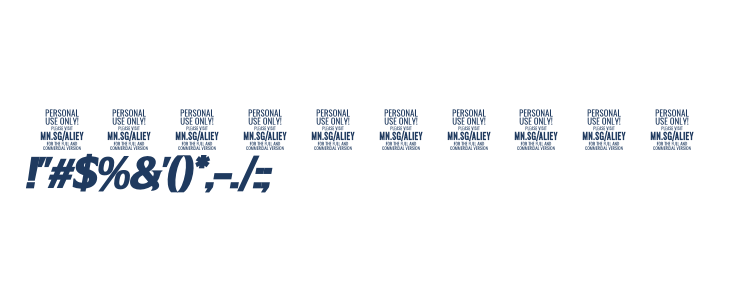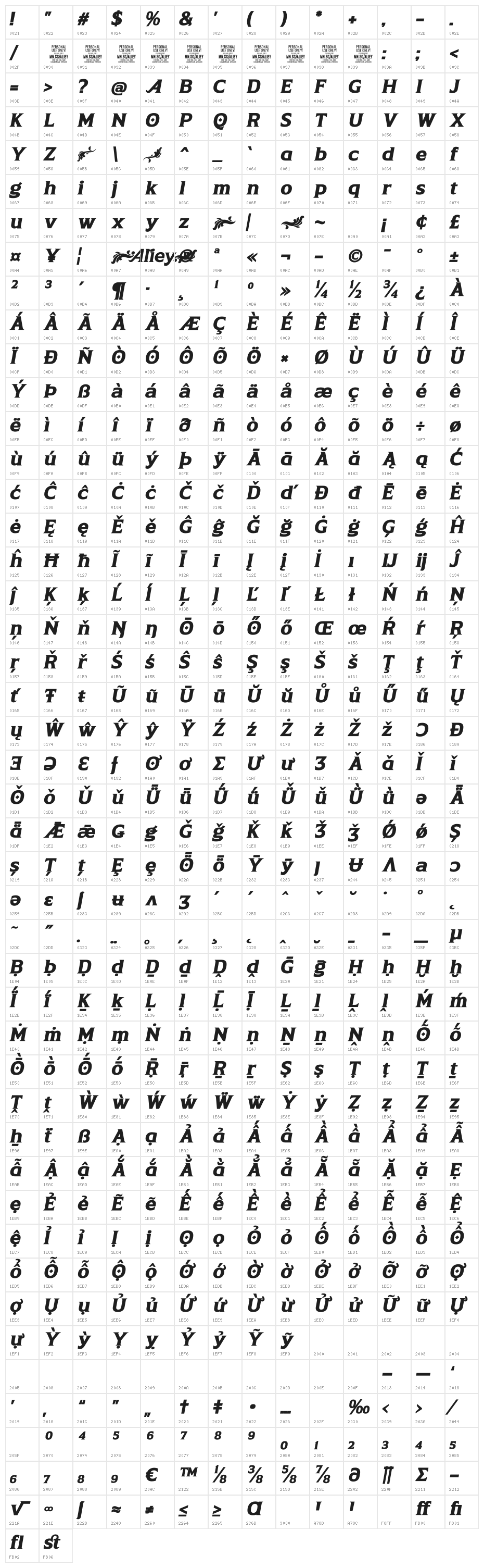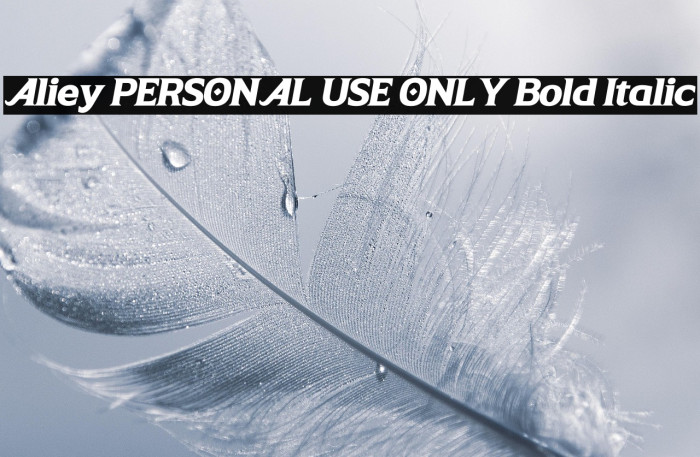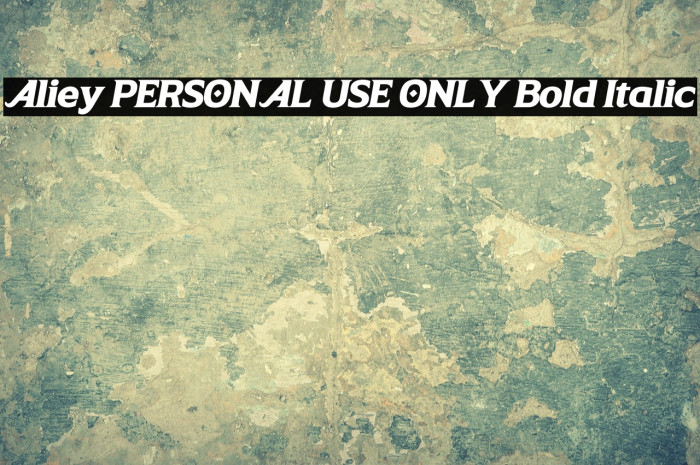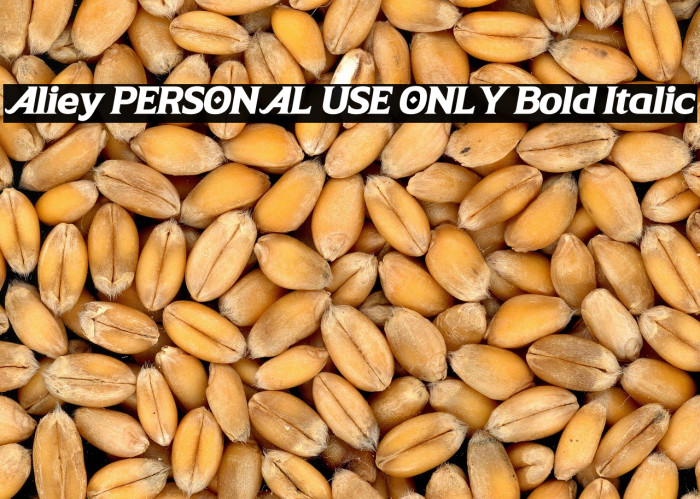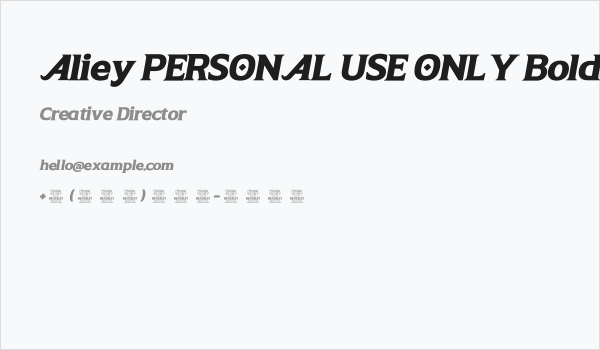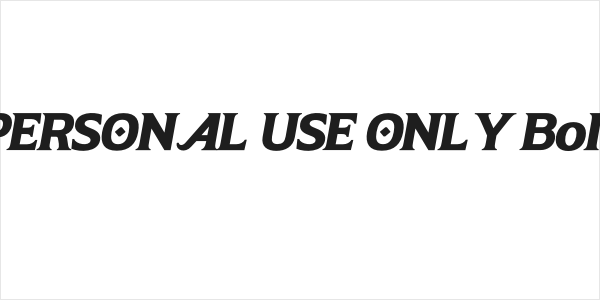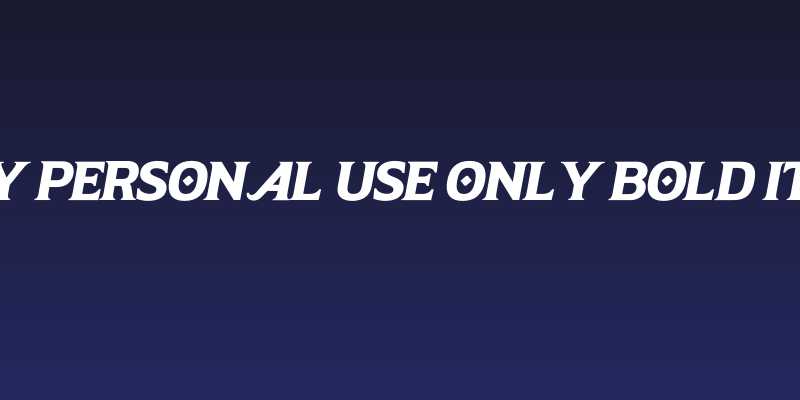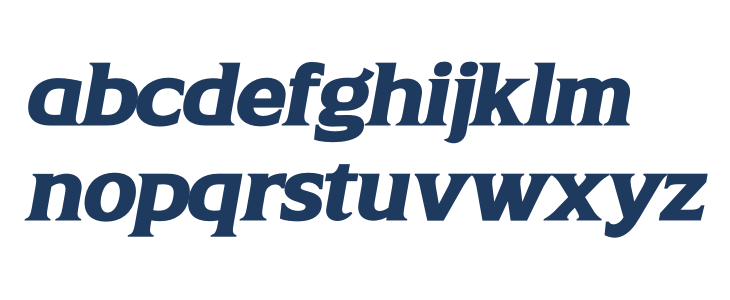
Aliey PERSONAL USE ONLY Bold Italic Font
Aliey PERSONAL USE ONLY Bold Italic Description
This font features a bold and italicized style, characterized by its dynamic and slanted letterforms. The uppercase and lowercase letters maintain a consistent weight, providing a strong visual impact. The strokes are thick, offering a high contrast between the thick and thin parts of the letters, which enhances readability while adding a touch of elegance. The font includes a complete set of uppercase and lowercase letters, numbers, and a variety of special characters, making it versatile for different design needs. The italic slant adds a sense of motion and fluidity, making it suitable for projects that require a bold statement.
| Proposed Projects | Ideal for branding, headlines, posters, and any design project that requires a bold and elegant touch. |